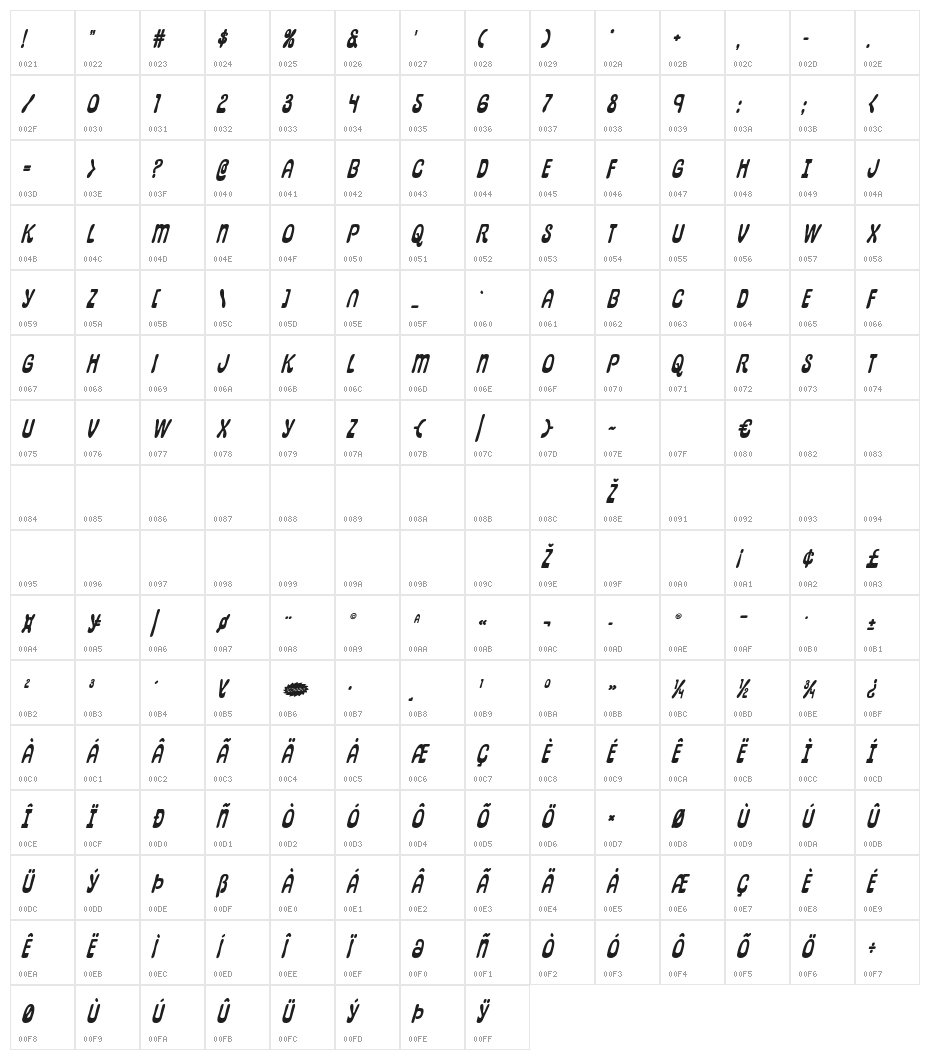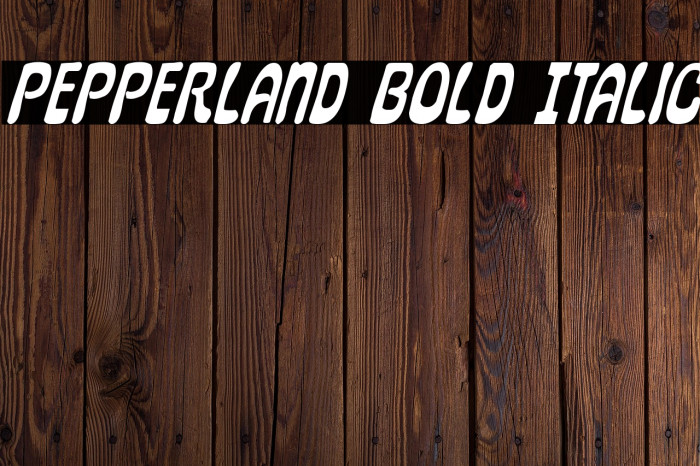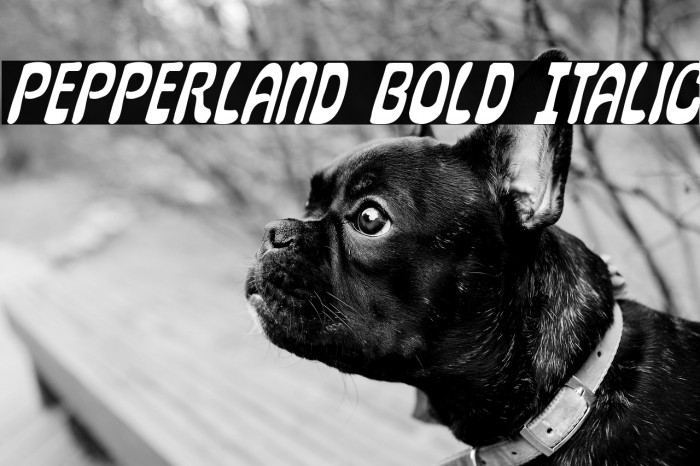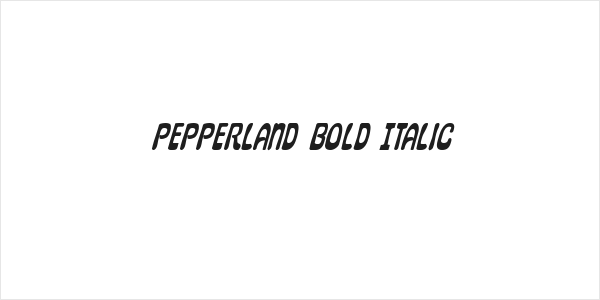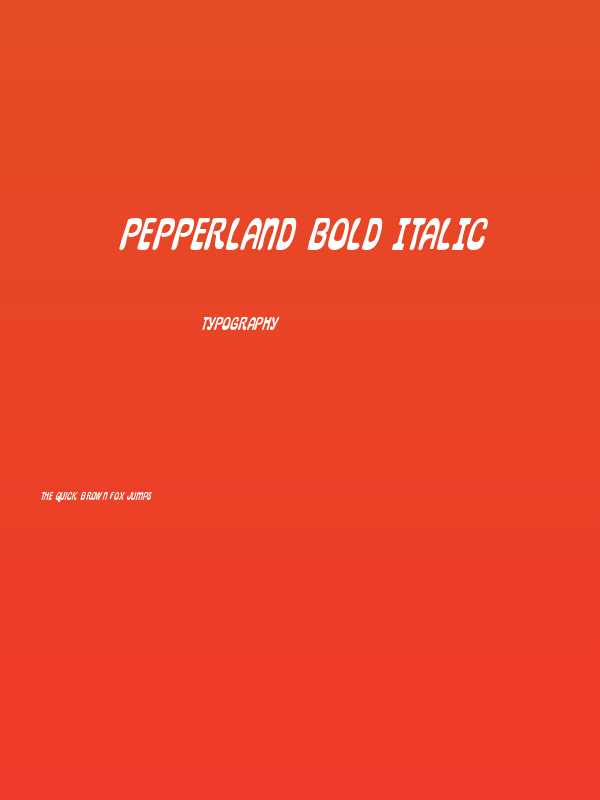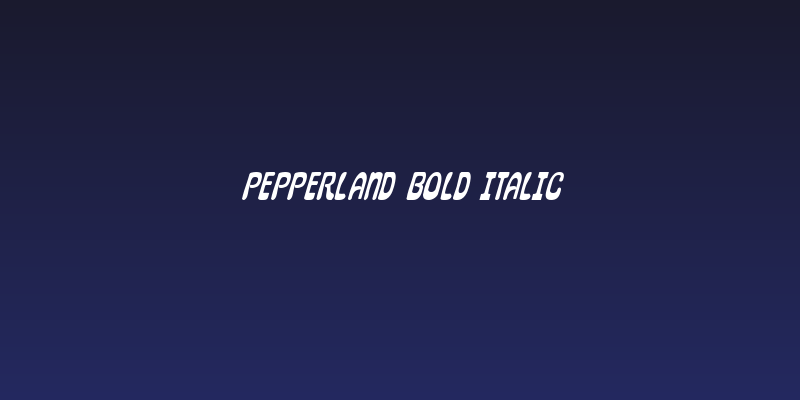
Pepperland Bold Italic Font
Pepperland Bold Italic Description
This font features a bold and italic style that combines a modern flair with a playful touch. The characters are slightly slanted, giving a sense of motion and dynamism. The strokes are thick and consistent, providing a strong visual impact. Each letter is well-defined with rounded edges, contributing to a friendly and approachable appearance. The numbers and special characters maintain the same boldness and slant, ensuring uniformity across all glyphs. This font is suitable for projects that require a lively and energetic feel.